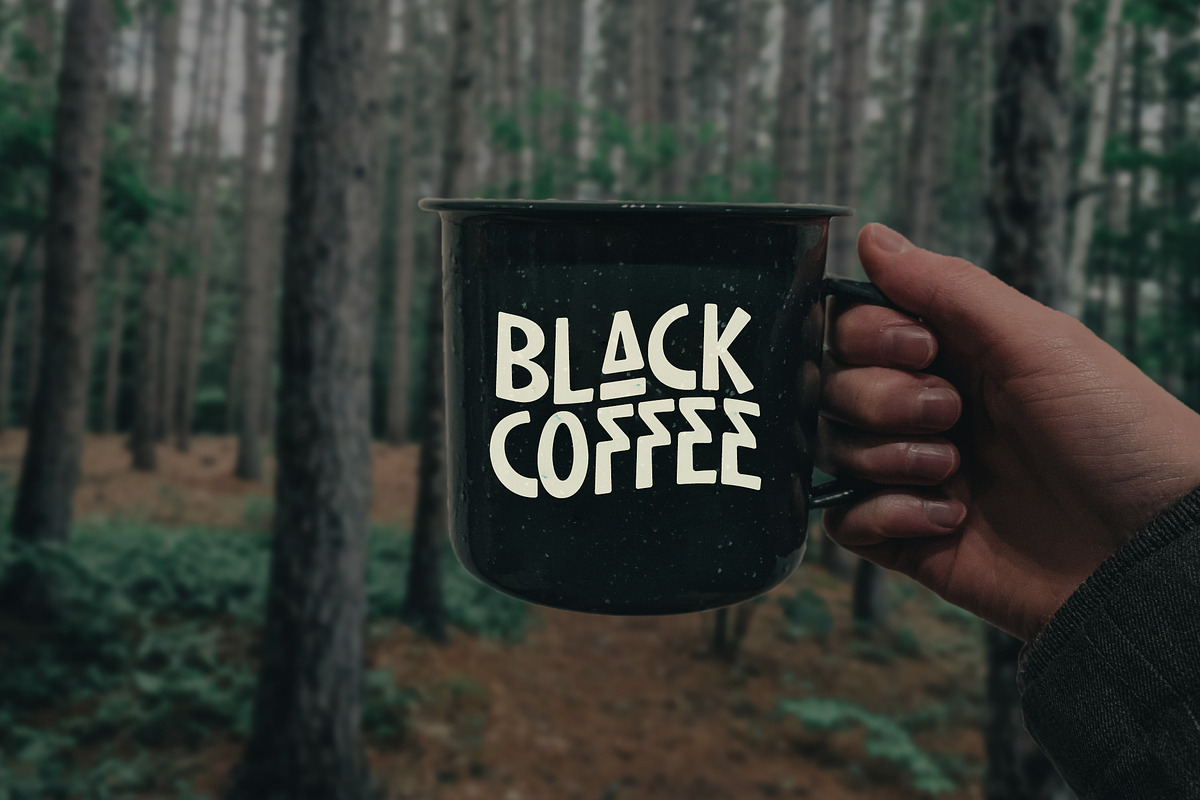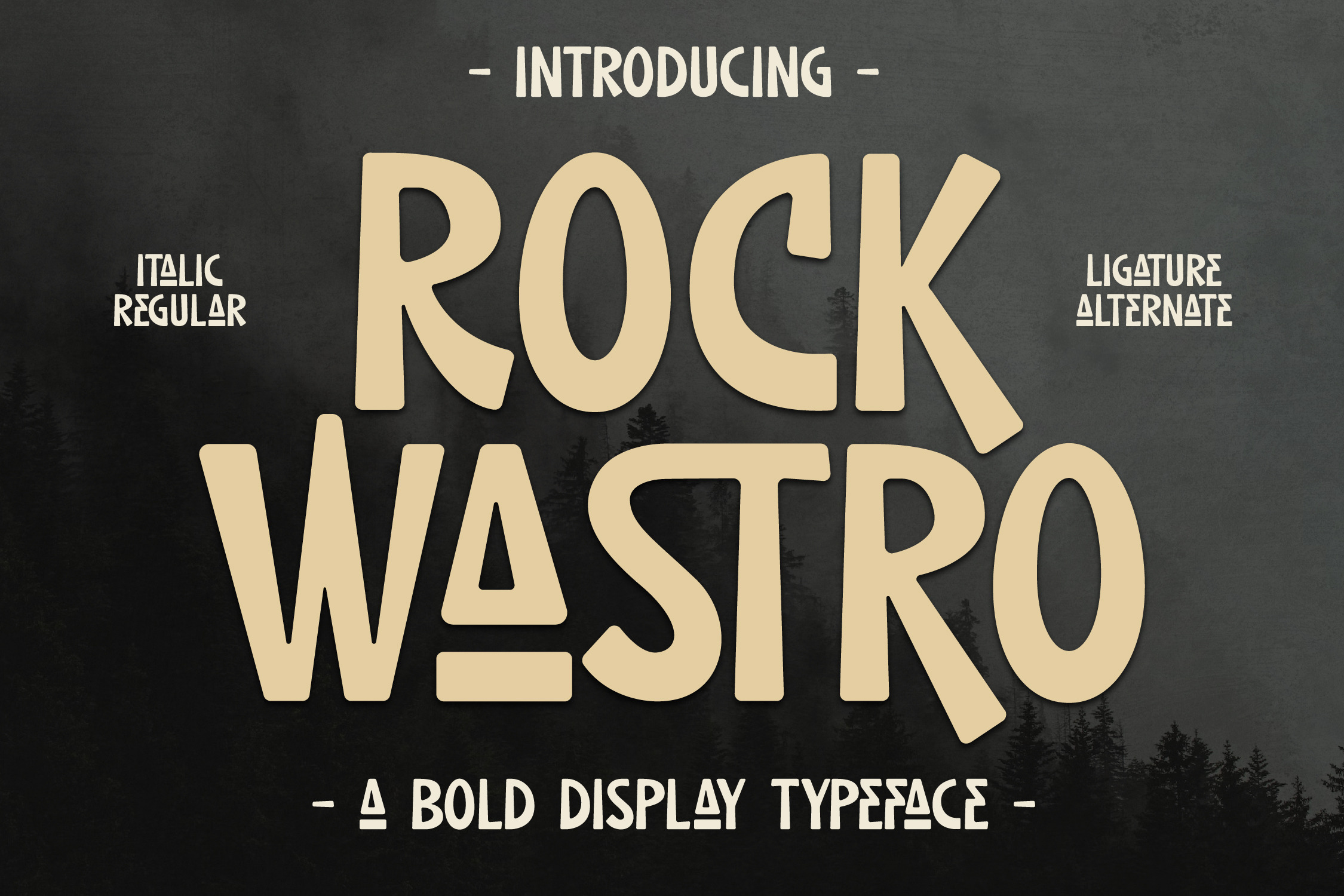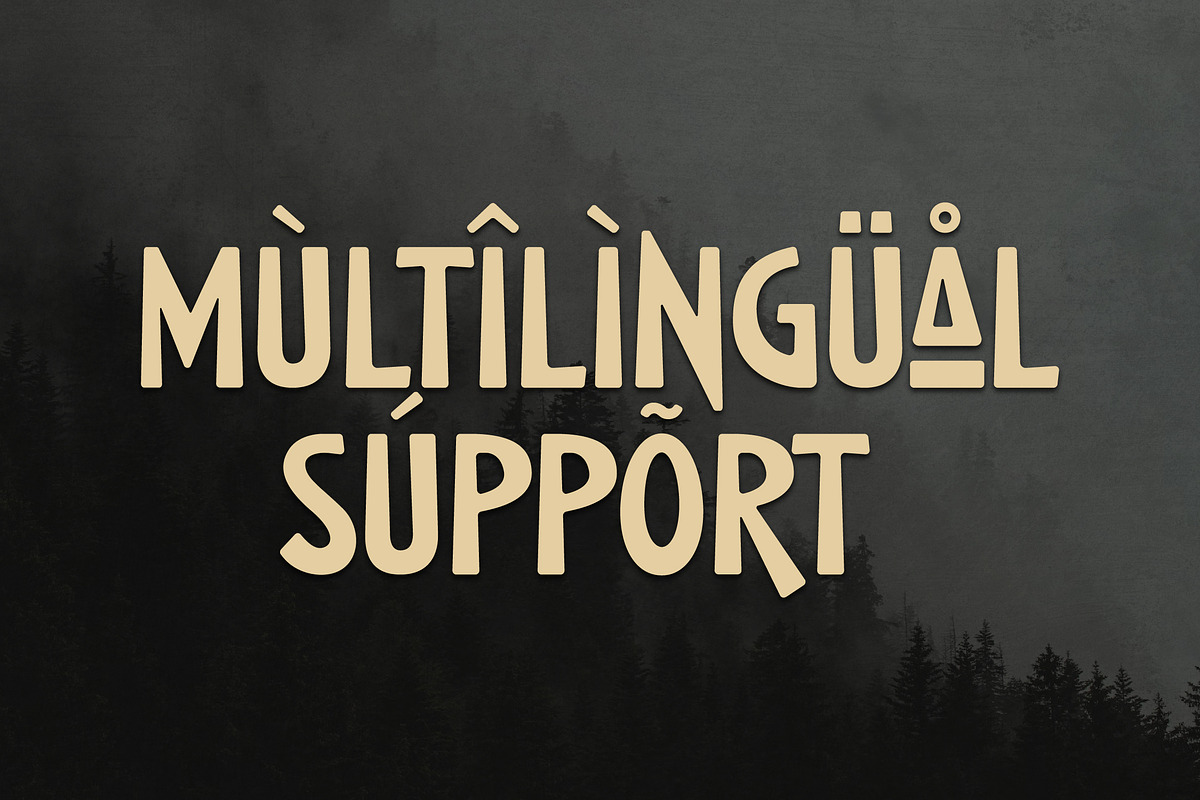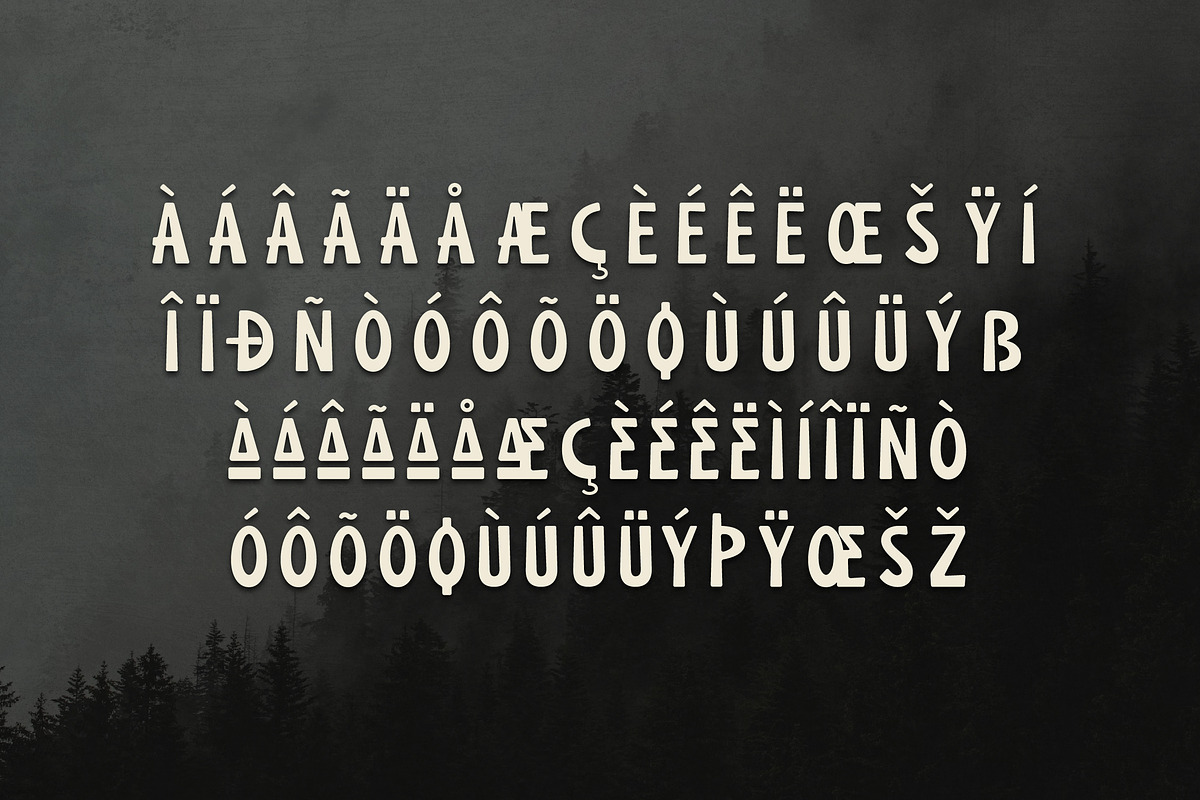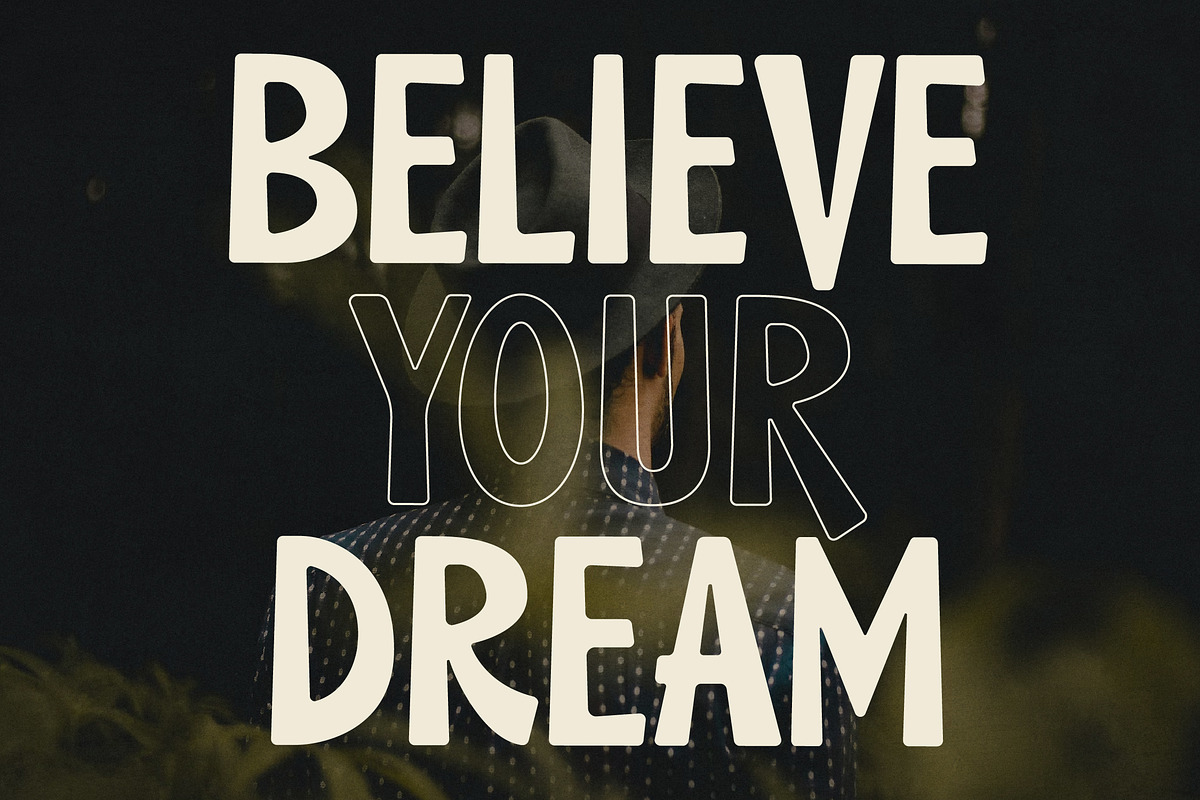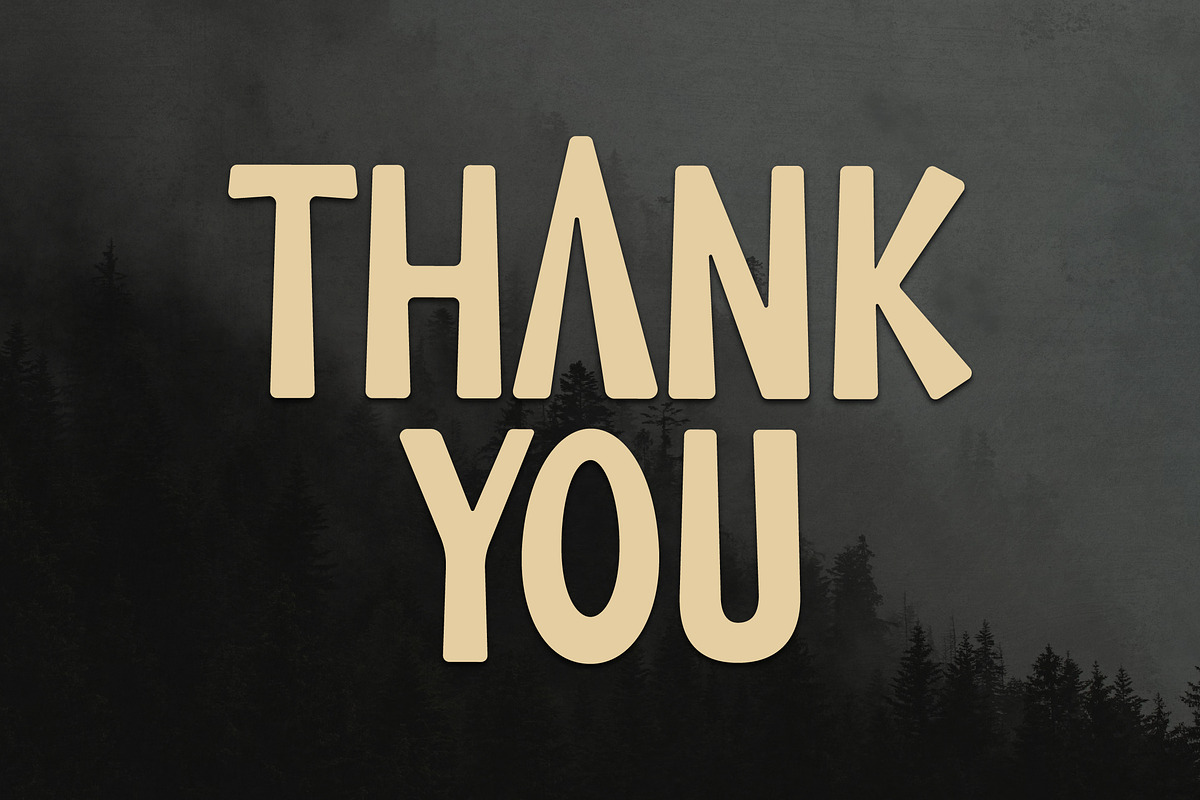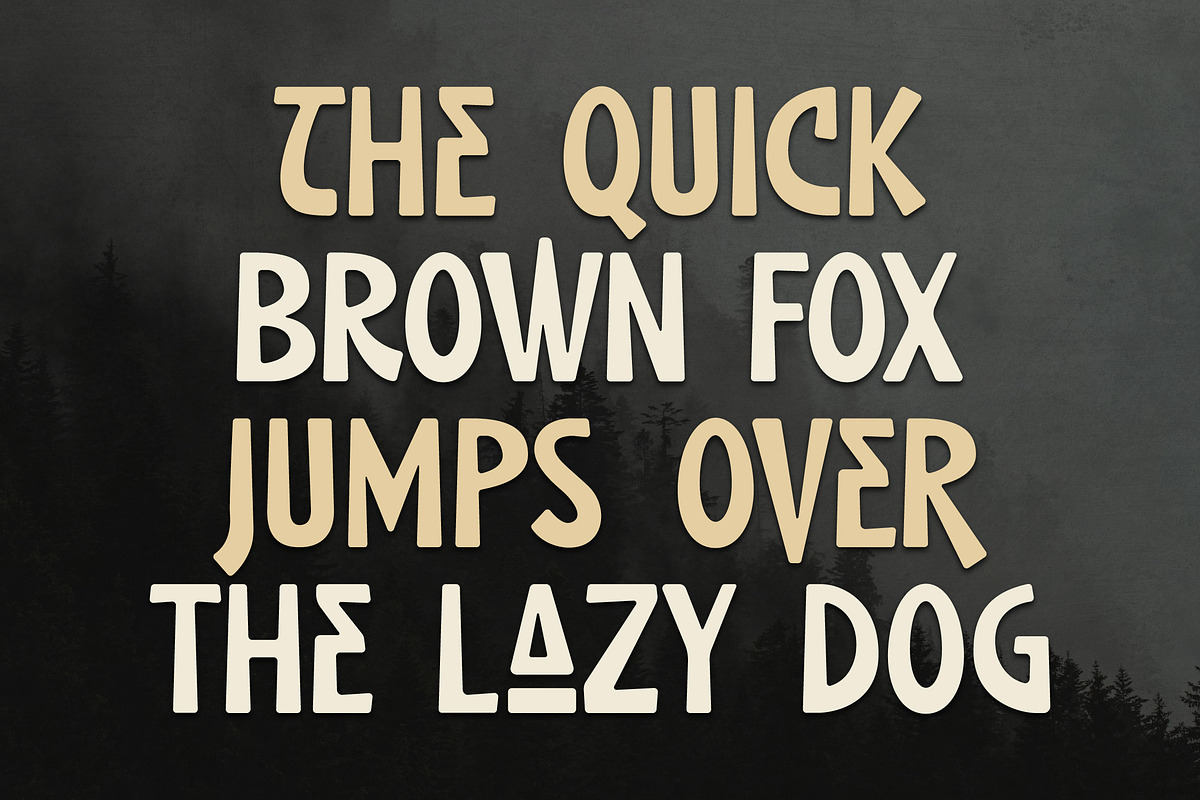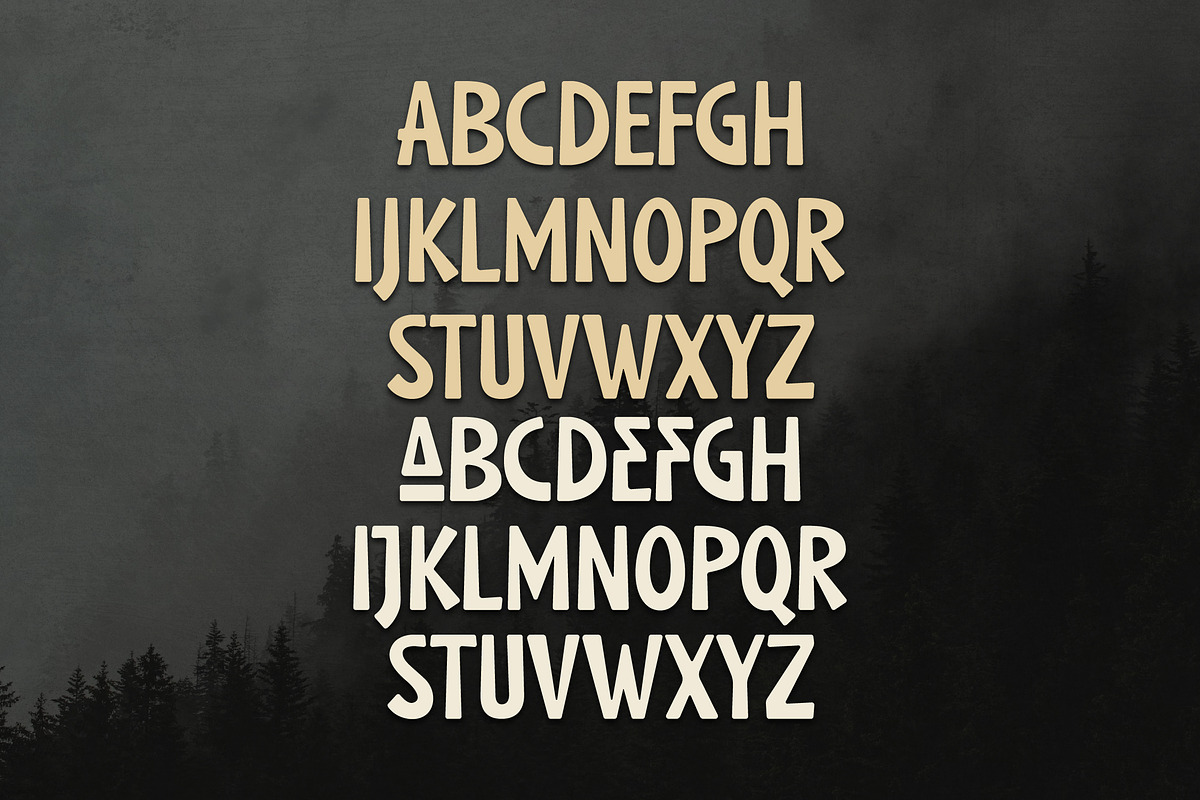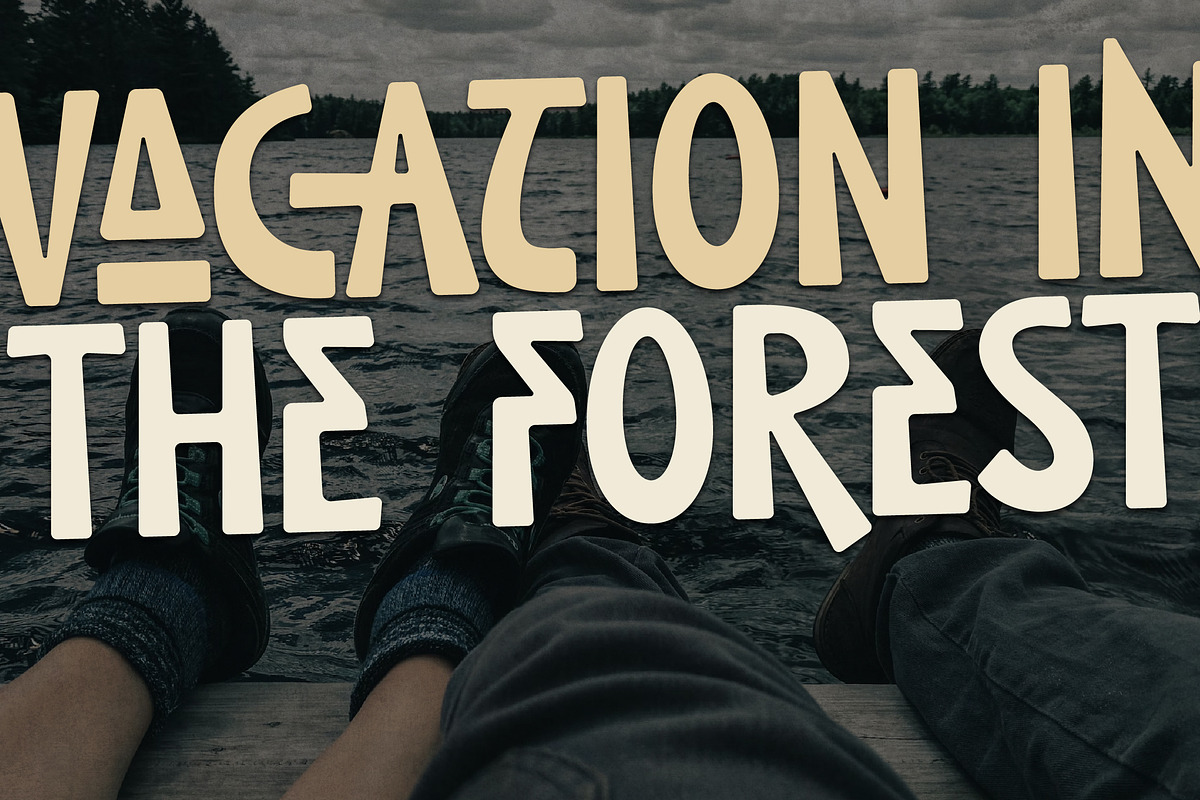
Rock Wastro Blod Display Typeface
Proudly present ROCK WASTRO Typeface , created by Storytype, A serif modern and classic typeface that has own unique style & modern look. This typeface is perfect for an elegant & luxury logo, book or movie title design, fashion brand, magazine, clothes, lettering, quotes, and so much more.